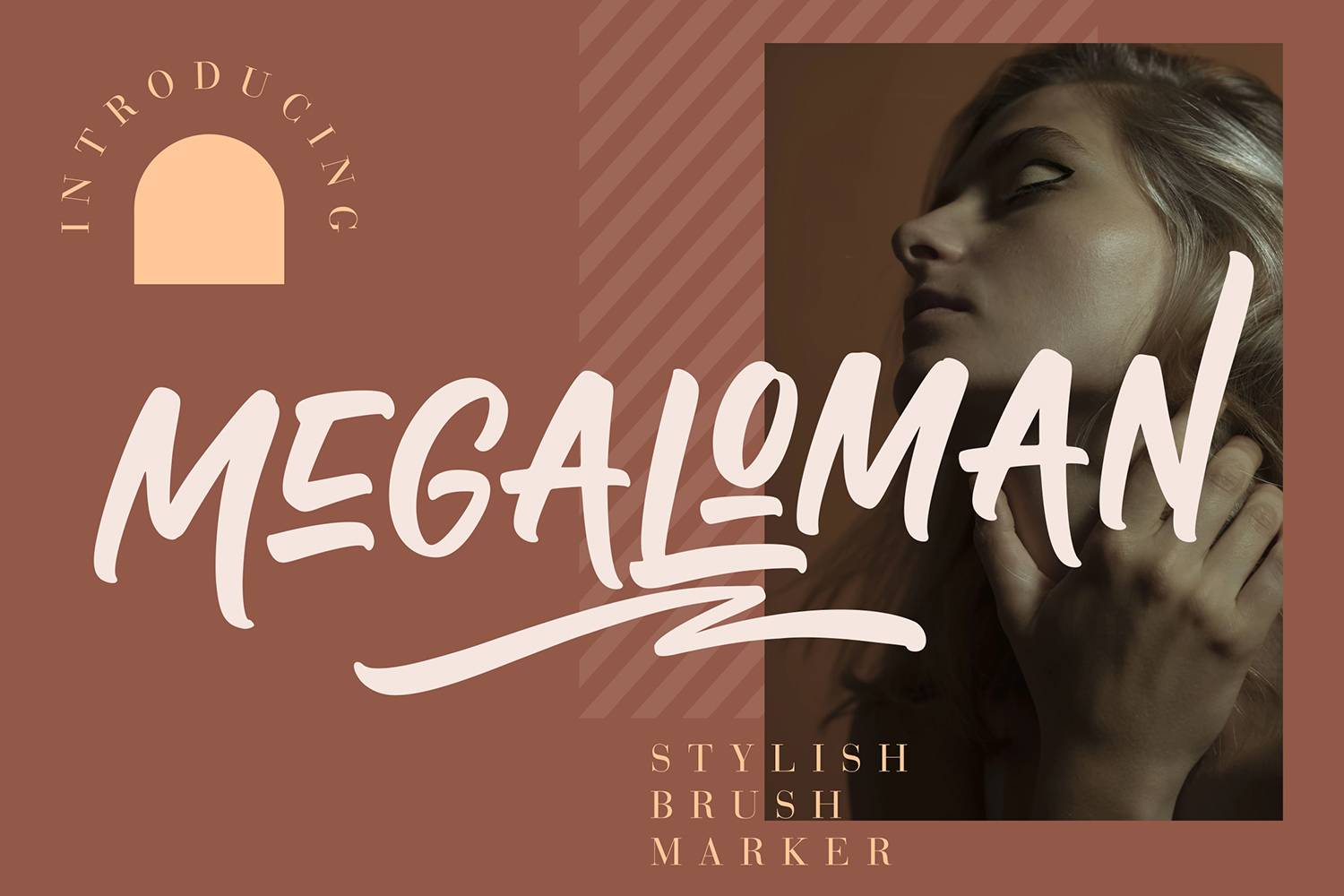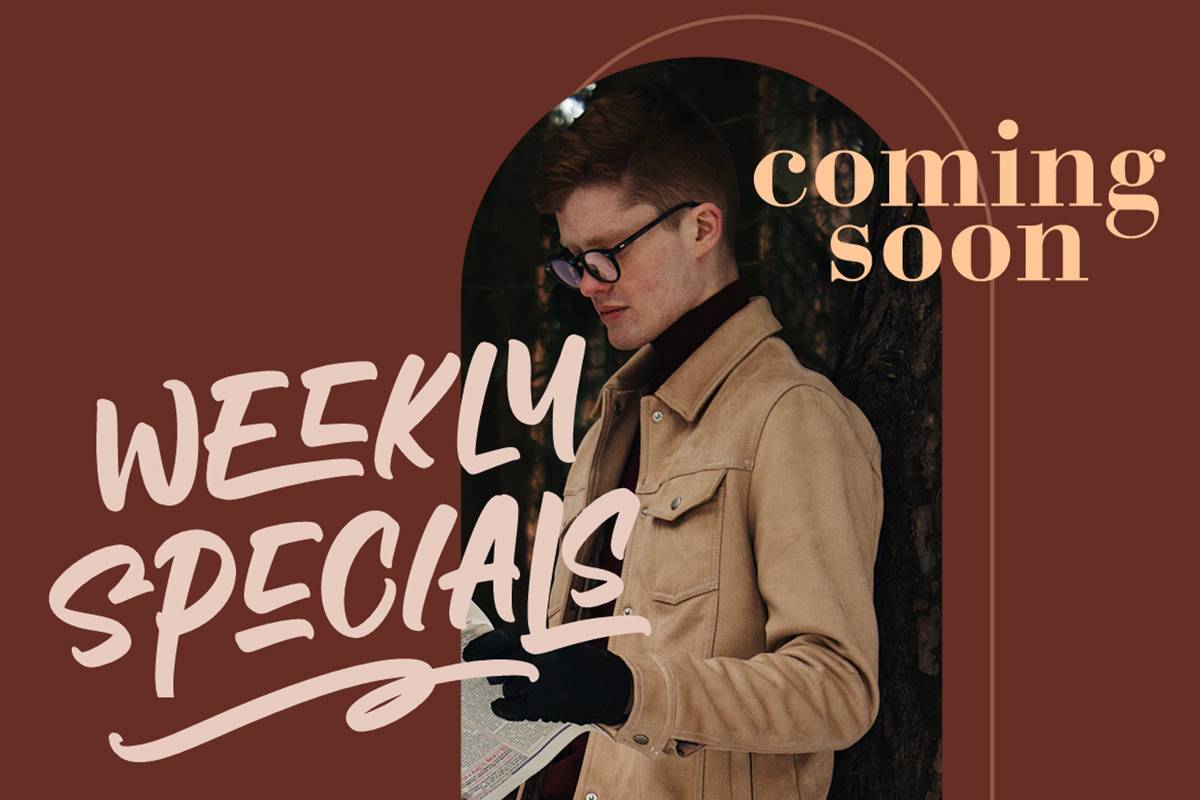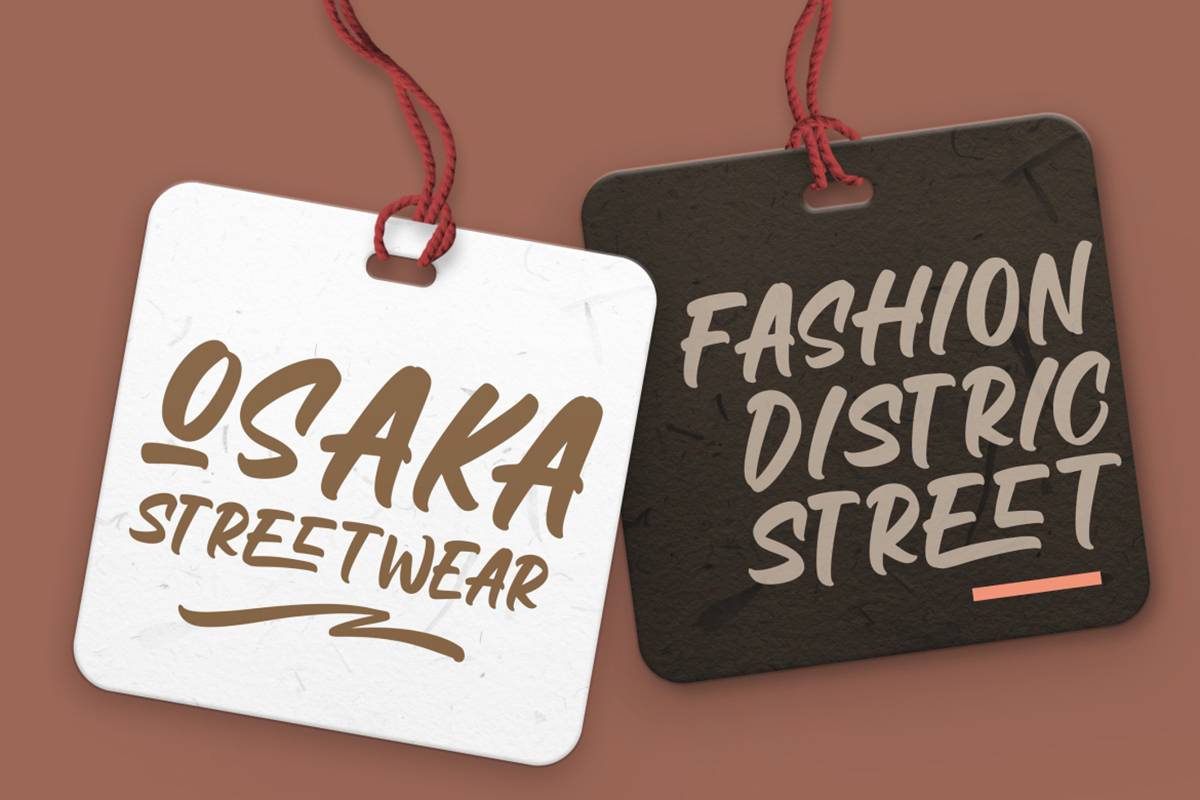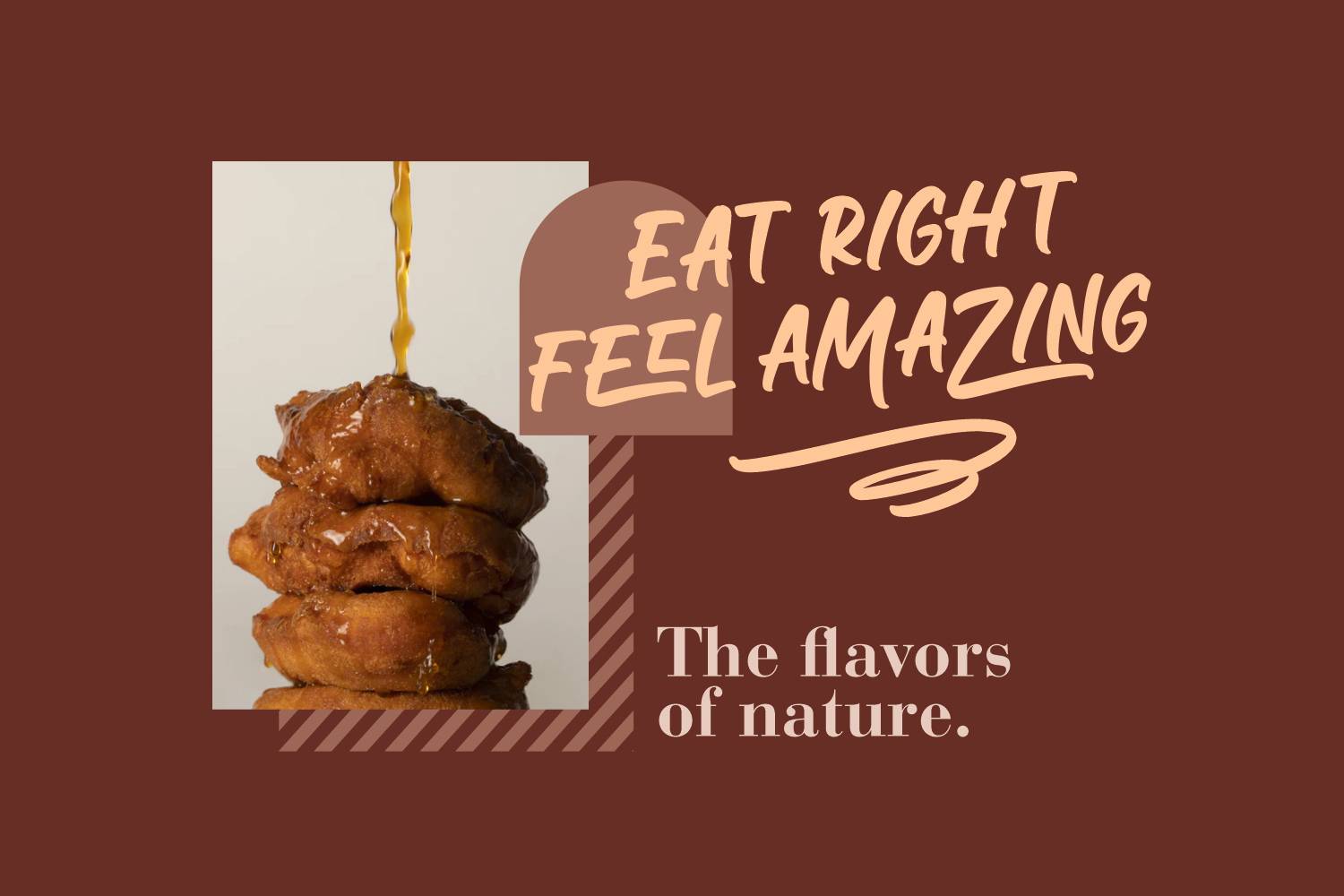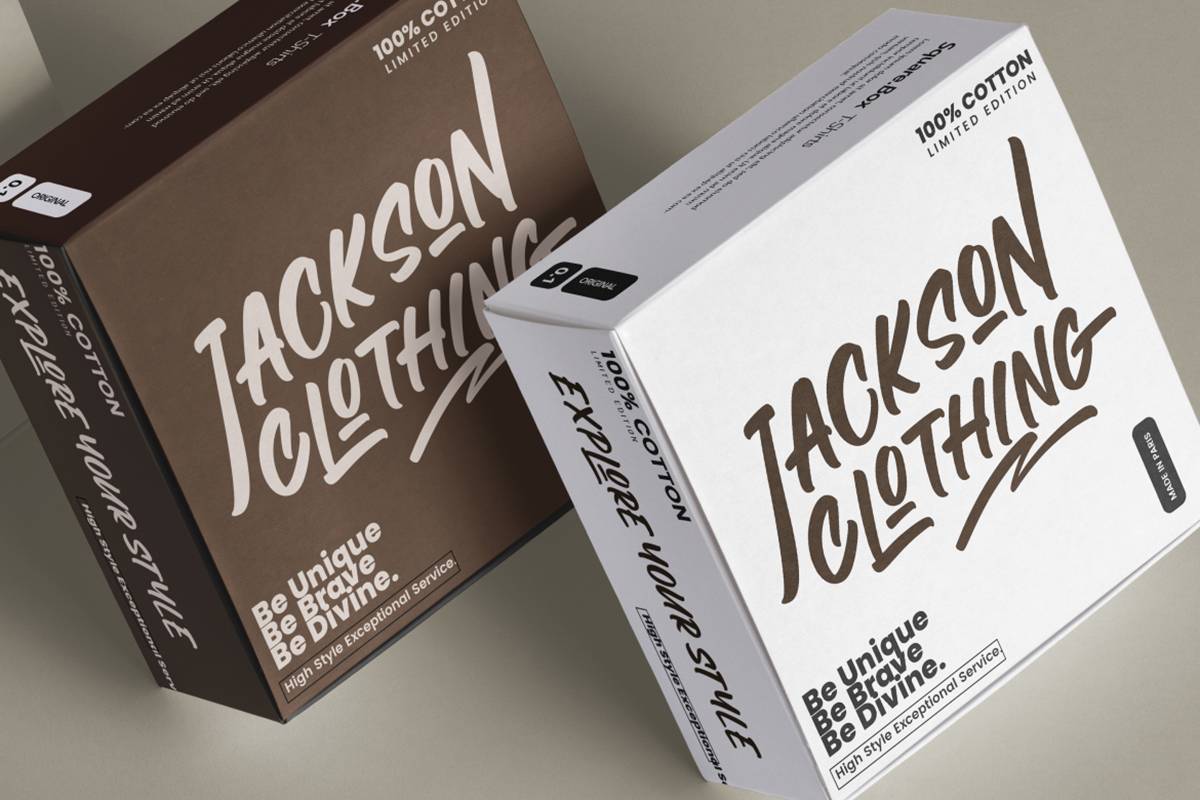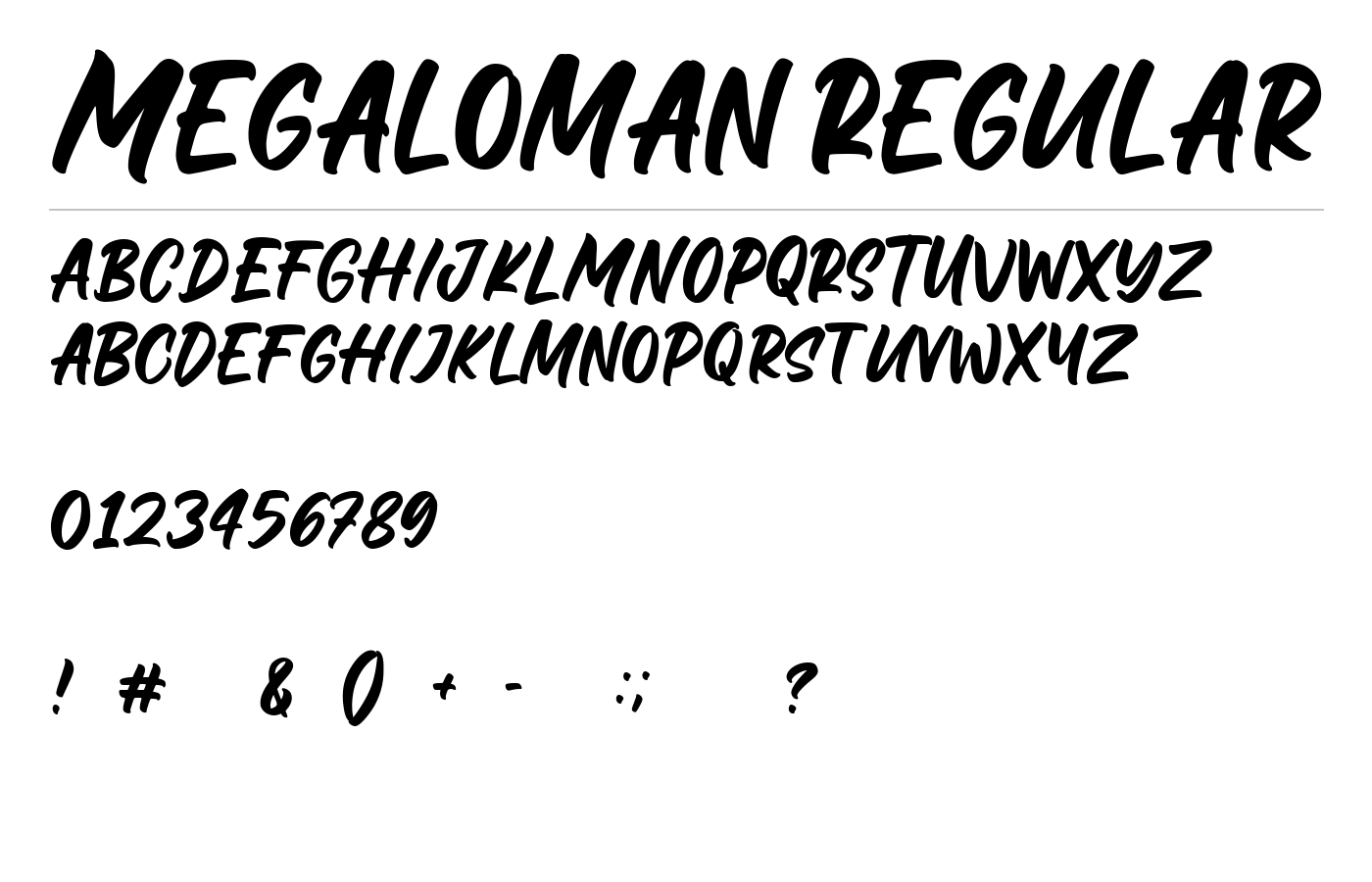
Megaloman is a bold, energetic script font with a hand-drawn feel, featuring a slightly condensed width and dynamic, brush-like strokes. Its playful yet confident style makes it ideal for branding, headlines, and creative projects that want to convey personality and vitality. This font works well in designs aiming for a casual, approachable vibe with a strong visual impact.
Megaloman Font
About Megaloman Font